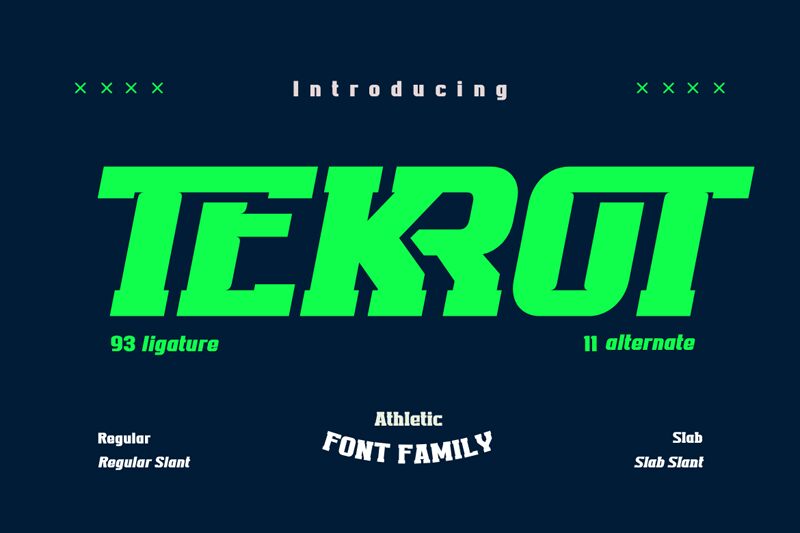
Tekrot Slab stands out with its robust slab serif design, a confident choice that commands attention. Crafted by Twinletter, this font exudes strength and stability through its bold stance, making it an unmistakable anchor in any visual composition. Its broad, blocky serifs and solid structure give it a contemporary edge while nodding to the tradition of classic print.
The decisiveness of Tekrot Slab makes it ideal for headlines that need to make an impact or branding where a sense of authority is key. Its assertive presence works well in advertising, editorial design, and any project requiring a touch of modernity infused with the reliability of slab serifs.